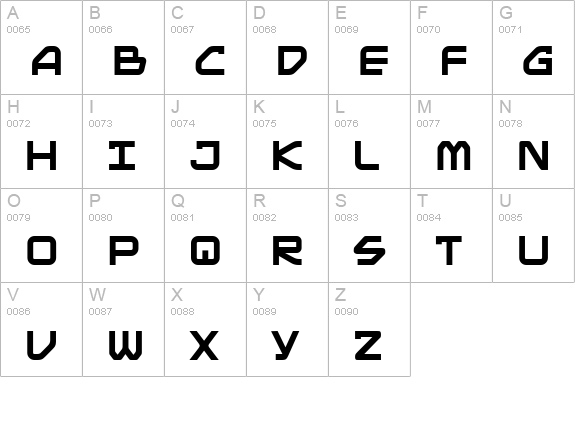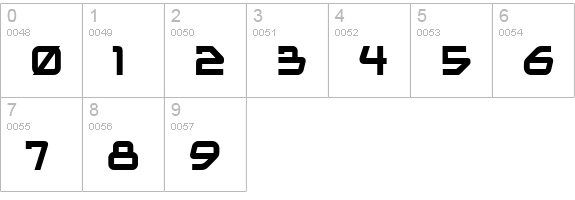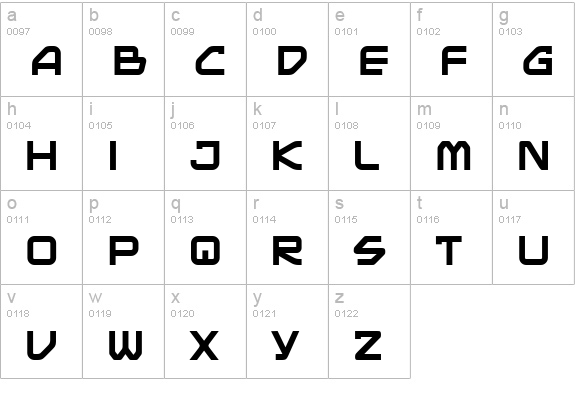
Mainframe BB Font Details
Mainframe BB font is a sleek and stylish typeface that exudes a sense of sophistication and professionalism. Its bold and angular letterforms make a strong impact, perfect for adding a modern touch to any design project. This font is not only visually appealing, but it also offers a unique and futuristic vibe that is sure to captivate viewers. Each character is meticulously crafted to ensure clarity and readability, making it suitable for a wide range of applications, from logo design to website headers. One of the best things about Mainframe BB font is that it is freely available to download at FontsMarket.com. This means that you can easily access and use this remarkable font without any hassle. Whether you're a graphic designer looking to enhance your creations or a business owner wanting to make a statement with your brand, Mainframe BB font is the ideal choice. The versatility of Mainframe BB font is further highlighted by its compatibility with various software and platforms. It can be seamlessly integrated into Adobe Illustrator, Photoshop, InDesign, or any other design software you prefer. Its OpenType features also allow for easy customization and experimentation, giving you endless possibilities to explore. With Mainframe BB font, you can confidently express your creativity and stand out from the crowd. Its clean and contemporary aesthetic will leave a lasting impression on your audience, making it a valuable asset for any project. So why wait? Download Mainframe BB font for free at FontsMarket.com today and start creating visually stunning designs that leave a lasting impact.